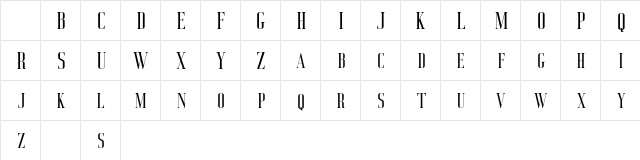
Complete Deluce Free Regular glyph index. Displaying only characters natively supported by Deluce Free Regular font.
Deluce Free is a composed and adaptable typeface that performs quietly and consistently across a wide range of design contexts.